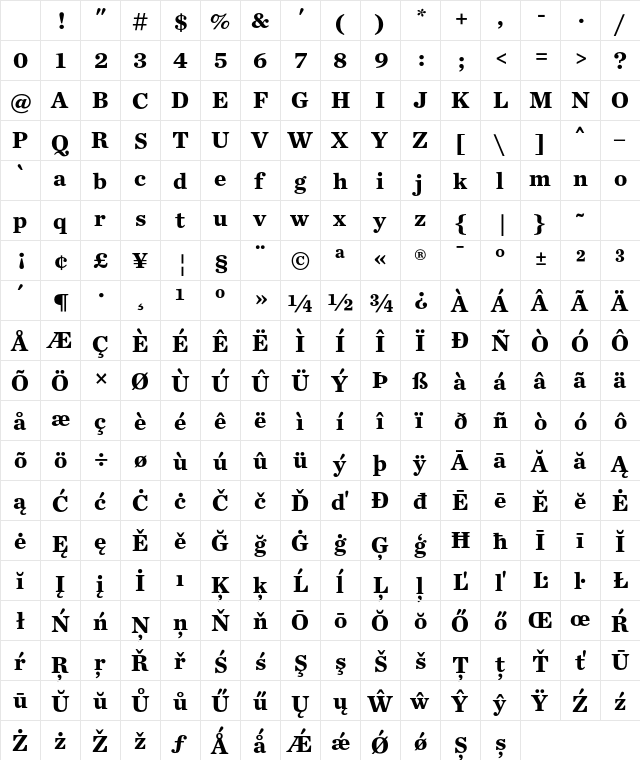
Complete Chronicle Text G2 Bold glyph index. Displaying only characters natively supported by Chronicle Text G2 Bold font.
Chronicle Text G2 is a composed and adaptable typeface that performs quietly and consistently across a wide range of design contexts. Its bold stroke weight gives it real presence on the page.
Who designed the Chronicle Text G2 Bold font?